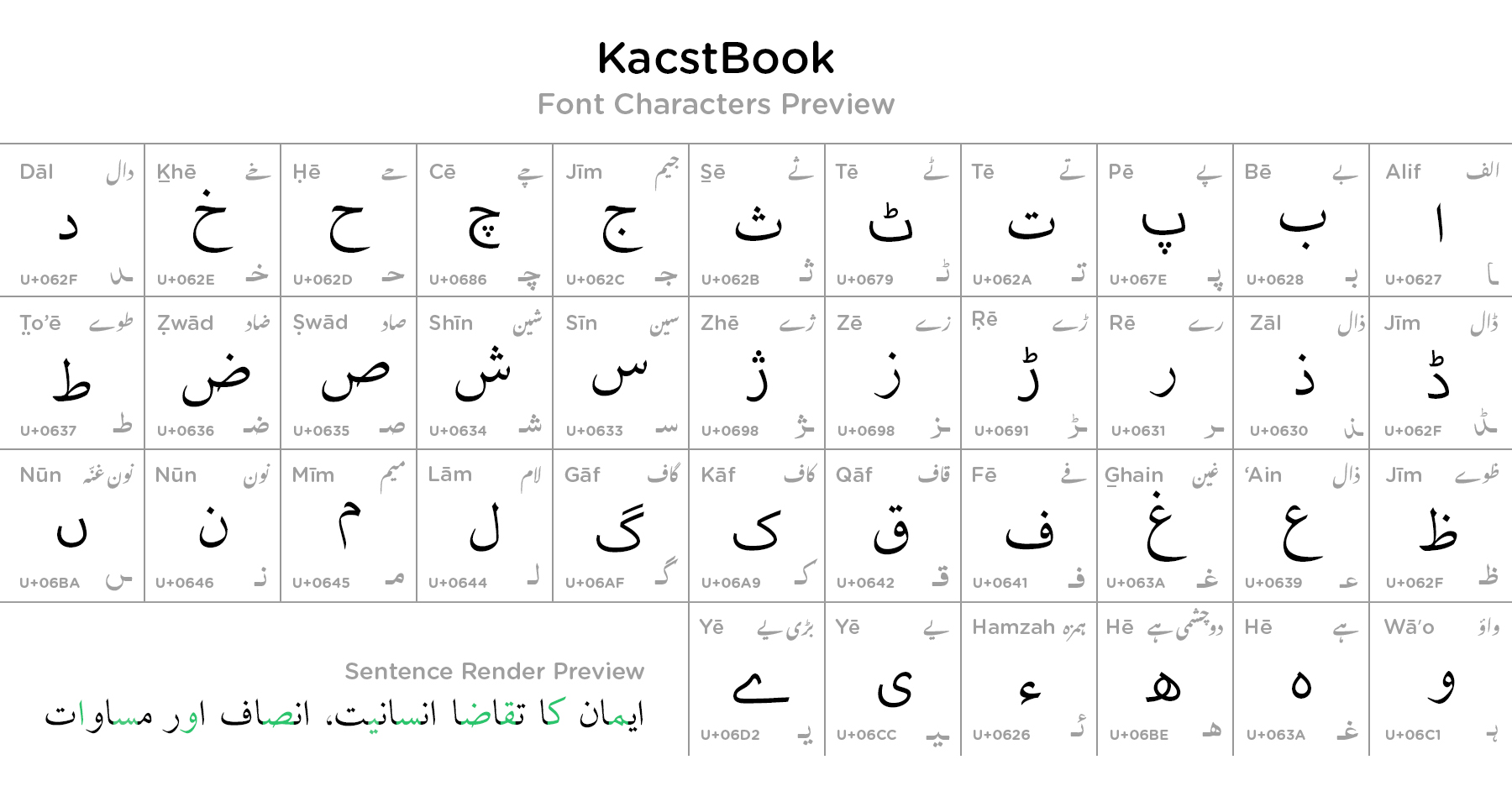
KacstBook
Developed by KACST (King Abdulaziz City for Science and Technology), KacstBook is a trademark Arabic font released under the GPL license. Inspired by the Naskh script with modern influences, it features plain, wide, monospaced letters in a Qalam writing style. With a consistent thickness and thin, delicate strokes, it offers a clean and clear appearance, ensuring high legibility on screens, even at small sizes. Its simple and spacious letters make it best suited for shorter texts requiring immediate attention. Released in 2016, KacstBook comprises 445 characters and 459 glyphs, ensuring compatibility with Urdu, Arabic, Latin, Persian, and more languages.
This font finds versatile applications in social media posts, creative posters, book covers, and more. Its Unicode support spans across various blocks, such as Basic Latin, Arabic Presentation Forms, and Geometric Shapes, making it accessible for diverse typographic requirements. Whether used for digital content creation or print materials, this font adds a touch of clarity and elegance to any text block. Its Qalam writing style and high legibility make it a valuable asset for designers and writers seeking to create visually appealing and impactful designs.